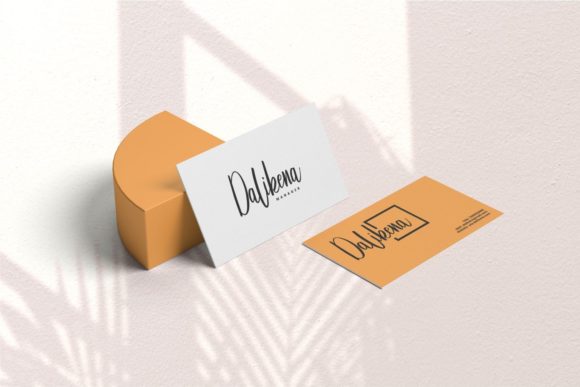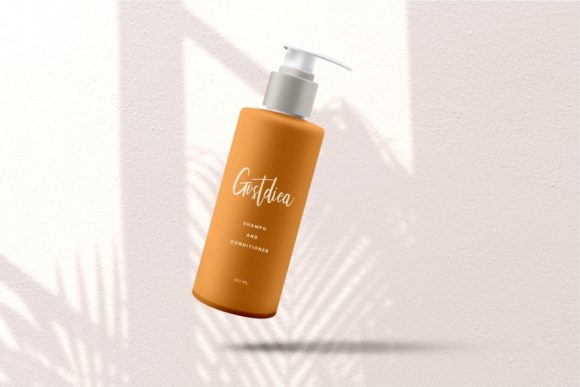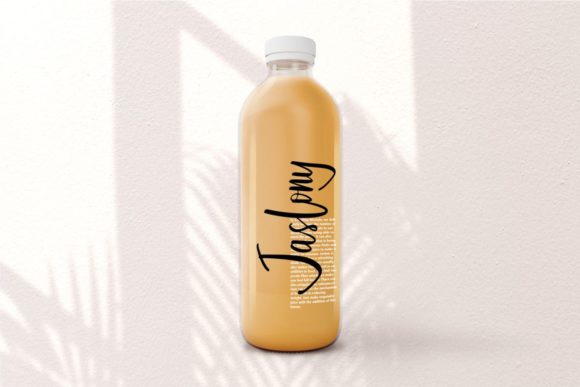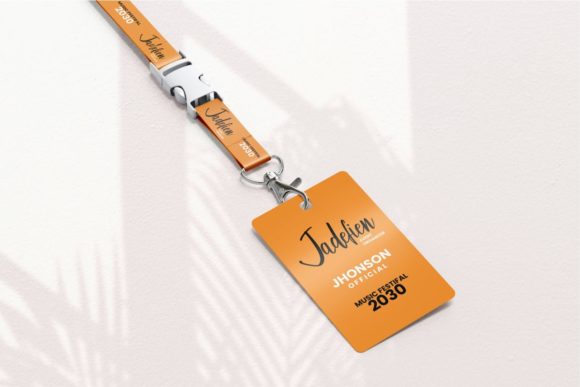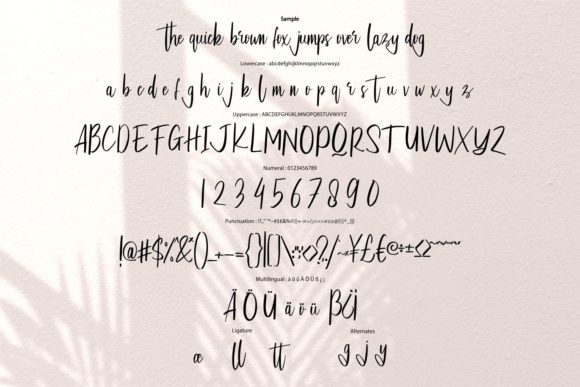
Unlock the Artistry of Asttonile Font
There’s nothing quite like the thrill of bringing a creative idea to life. The spark of inspiration strikes, and you’re racing to capture it before it slips away. For designers, this moment is a reminder that the right tools can make all the difference. That’s where Asttonile Font comes in – a chic and stylish handwritten font designed to add a touch of elegance to your work.
Asttonile Font is the perfect choice for creating eye-catching logos, branding, and quotes that leave a lasting impression. With every letter imbued with a unique and beautiful touch, this font brings your designs to life. Whether you’re working on a high-end project or a personal passion, Asttonile Font is a valuable addition to your toolkit.
- Unique Characteristics: The Asttonile Font features a unique blend of modern and vintage elements, with intricate details and ornate flourishes that set it apart from other fonts.
Asttonile Font Review
I recently had the chance to work with the Astonnile Font, and I have to say it’s a solid choice for any designer looking to add some flair to their project. ✨
Here are some of the things I liked about it:
- Unique yet Versatile**: Astonnile Font has a distinct, hand-drawn feel that can add a touch of elegance to any design, from logos to typography.
- Well-Crafted Letters**: Each letter is meticulously designed, with clean lines and subtle flourishes that make it perfect for headings and titles.
- High-Quality Glyphs**: The font includes a wide range of glyphs, including special characters and symbols, making it a great choice for designers who need to create visually appealing content.
- Limited Font Size Range**: While the font looks great at medium to large font sizes, it can become a bit distorted at smaller sizes, which may affect readability.
- Not Ideal for Body Text**: Due to its unique design, Astonnile Font may not be the best choice for body text, as it can be a bit too ornate for paragraphs.
Overall, I’d give Astonnile Font 4 out of 5 stars. While it has some limitations, it’s a great choice for designers who want to add some visual interest to their projects without sacrificing readability. With some careful selection and usage, Astonnile Font can be a real showstopper.
Tips for Getting the Most Out of Asttonile Font
Use Asttonile Font for titles, headings, and emphasis.
Combine Asttonile Font with other fonts for a unique visual effect.
Experiment with different font sizes and colors to achieve the desired look.
Asttonile Font is ideal for:
Graphic design projects.
Branding and logo design.
Marketing materials and presentations.